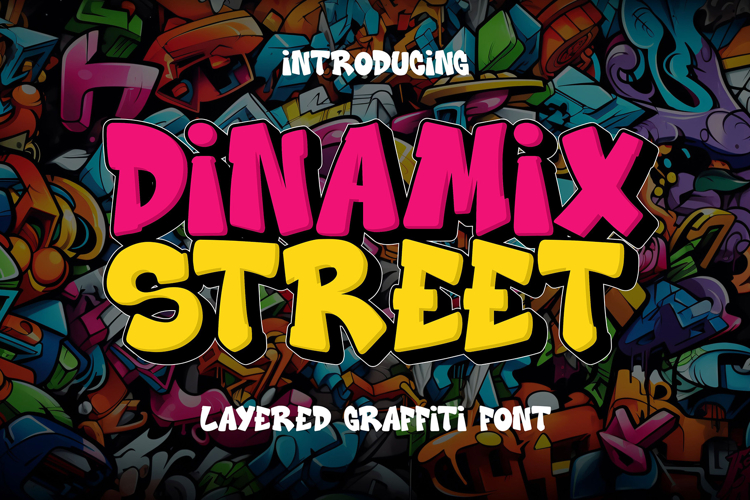
Dinamix Street - Layered Graffiti Font
Dinamix Street is a powerful layered graffiti font that injects urban energy into your designs. With its bold, raw style, this font is crafted for those who want their work to make a statement.
💥 Urban Influence: The raw, textured layers of Dinamix Street channel the gritty vibe of street art, making it a perfect choice for designs that need an edge. Whether it’s posters, album covers, or logos, this font delivers a striking, authentic look.
🎨 Customizable Layers: The layered design offers endless creative possibilities. Mix and match the layers to create unique effects that stand out, allowing you to personalize each design with a dynamic touch.
🔥 Bold Presence: Dinamix Street’s robust lettering and impactful style ensure your message grabs attention. This font is designed to be noticed, making it ideal for projects that demand a bold, rebellious aesthetic.
Dinamix Street is not just a font—it’s a visual powerhouse that brings the spirit of the streets into your work, perfect for creating designs as dynamic and expressive as the city itself.